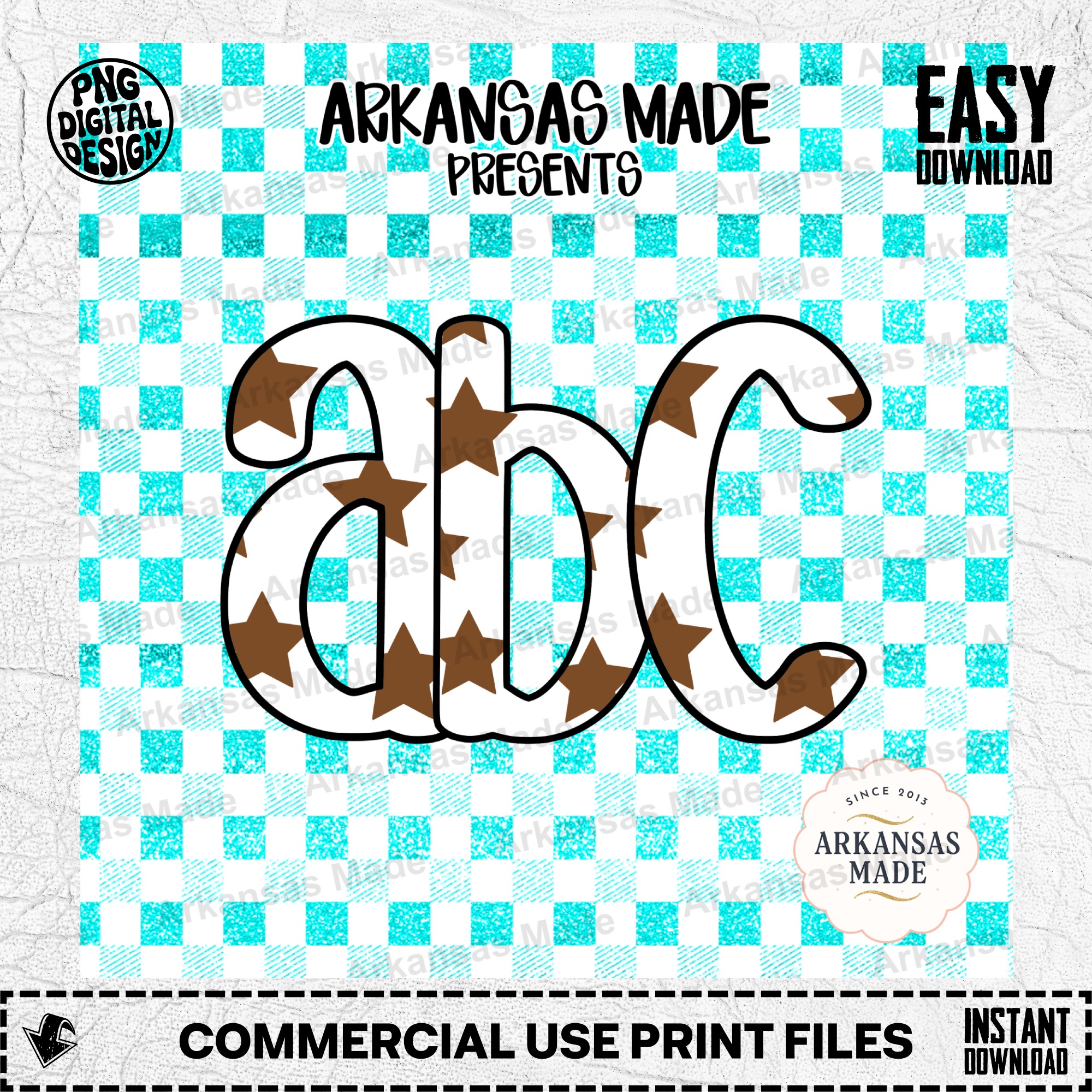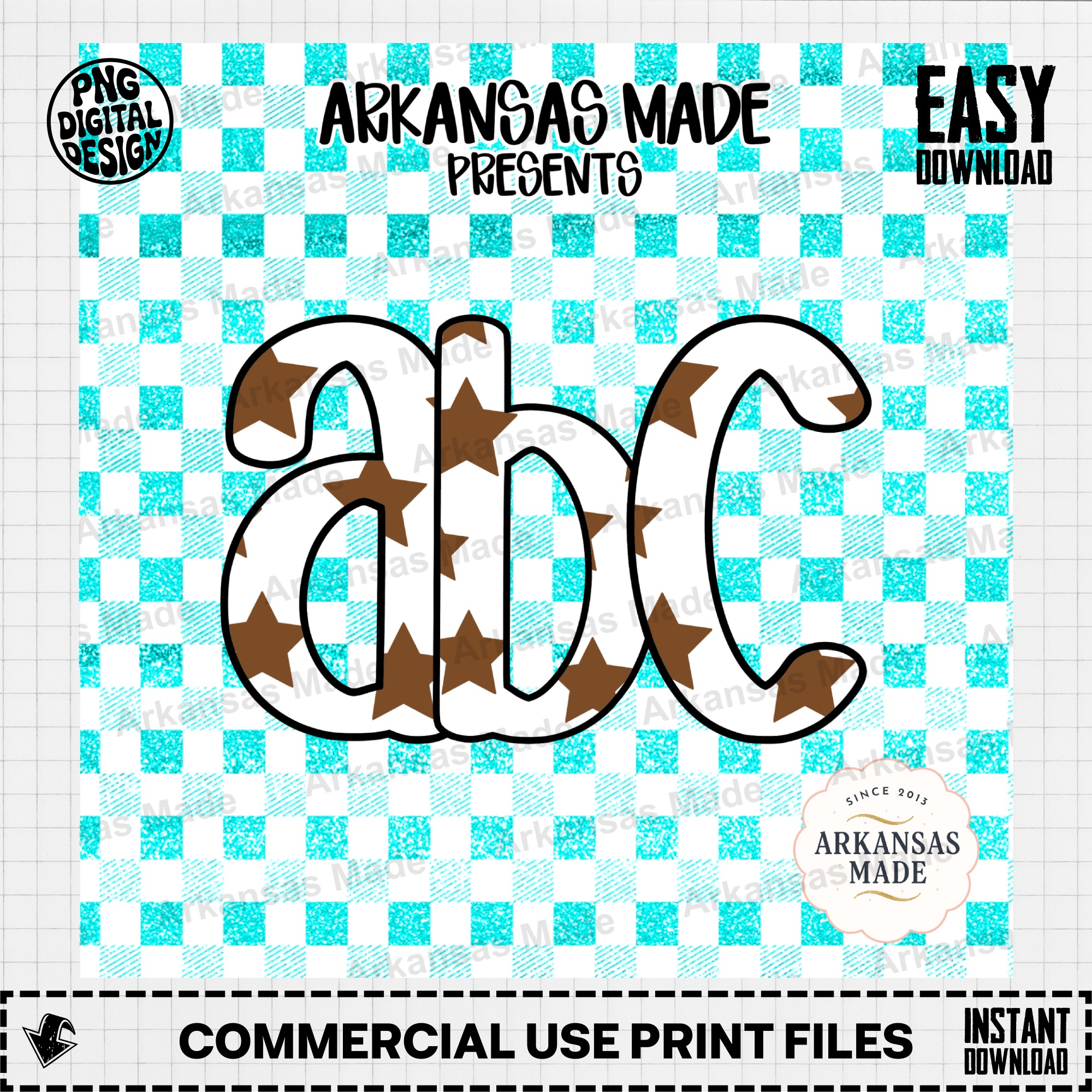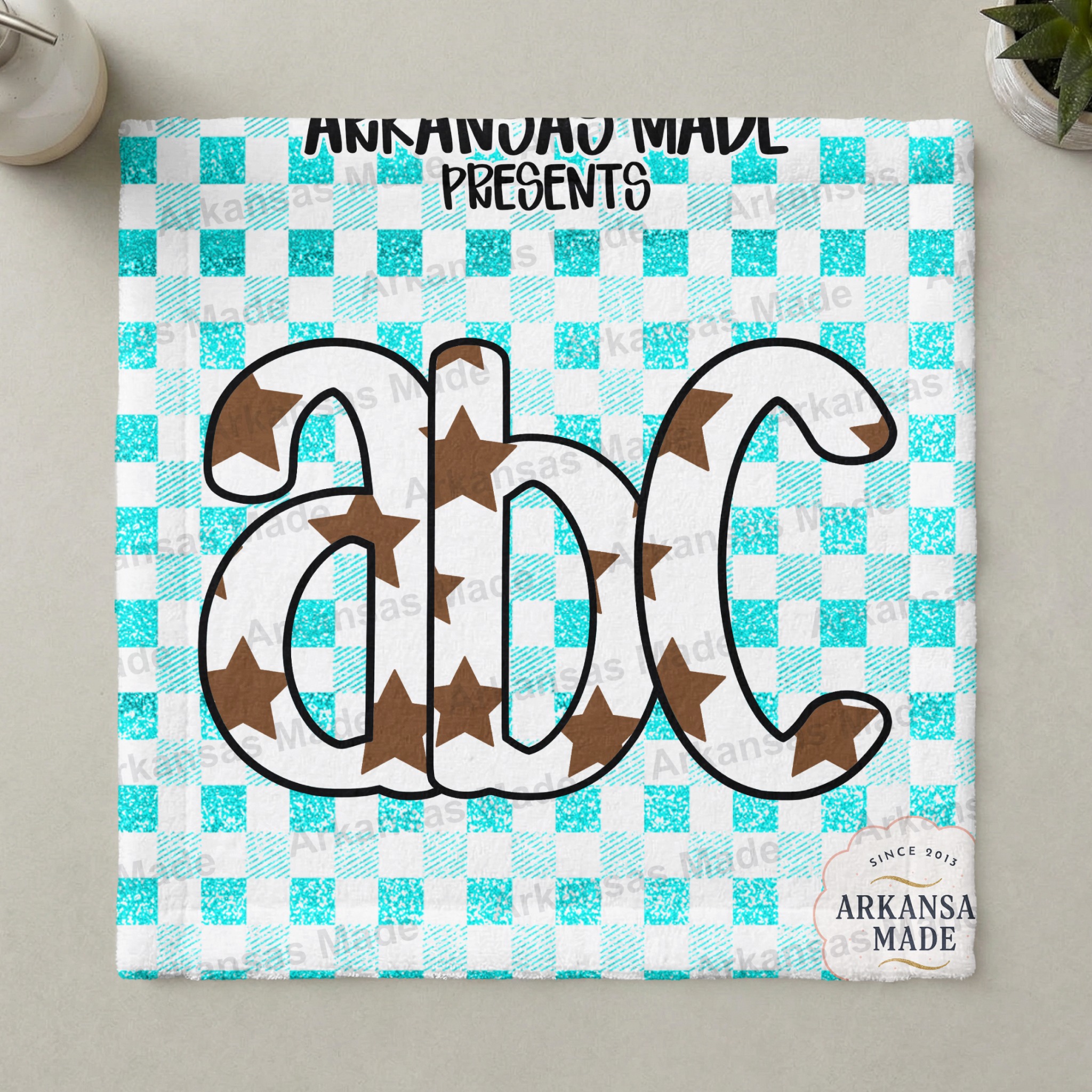
Brown Star Alphabet Digital Download Alpha Set | Western Cowgirl Letters PNG Sublimation Font for Crafts, Custom Designs & DIY
Unleash your creativity with this charming Brown Star Alphabet Digital Download Alpha Set, perfect for adding a Western touch to any project. Each letter features a bold design filled with rustic brown stars, ideal for crafting unique personalized gifts, apparel, or party decor. Embrace the playful cowgirl vibe for baby showers, birthday celebrations, or adding a touch of Southern charm to your designs. This versatile alphabet is a must-have for crafters, DIY enthusiasts, and small business owners creating custom items.